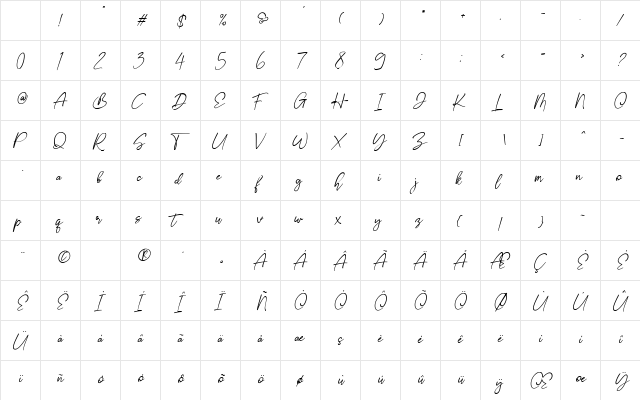
Stthomas Script flows with the natural rhythm of handwritten lettering, making it ideal for designs that call for warmth and personal expression.
Font Pairing: Combine Stthomas Script with a simple geometric sans for maximum contrast - the tension between flowing curves and clean structure is a classic typographic pairing.
Pro Tip: Use Stthomas Script for short runs of text - names, titles, or taglines. Extended body copy in script faces tires the eye quickly.